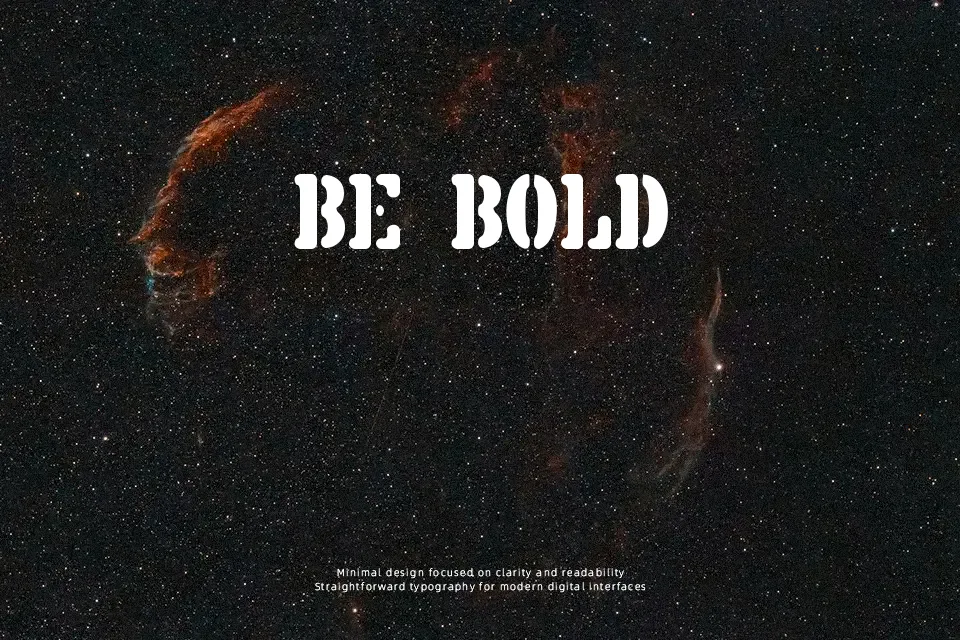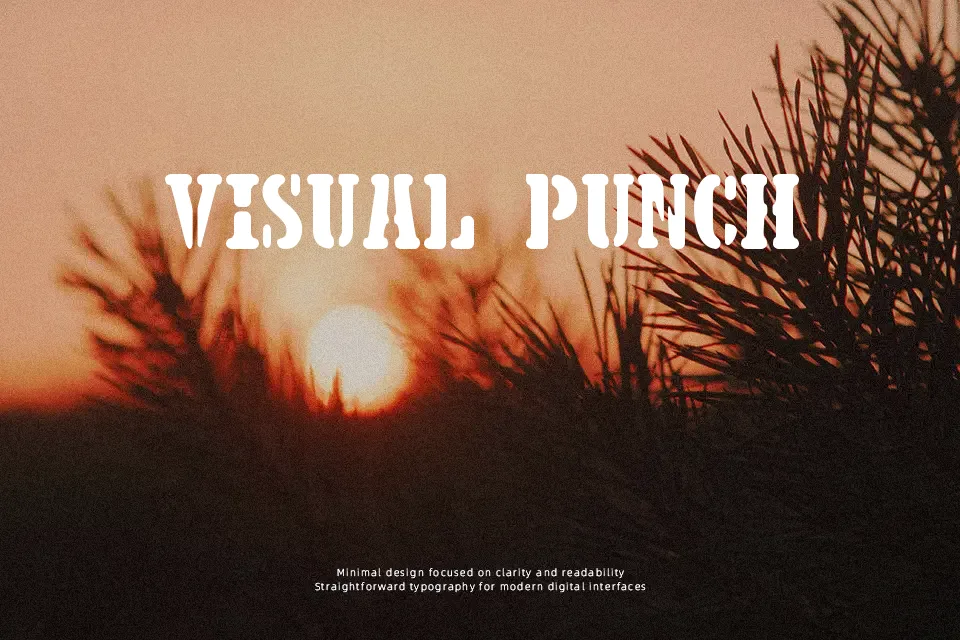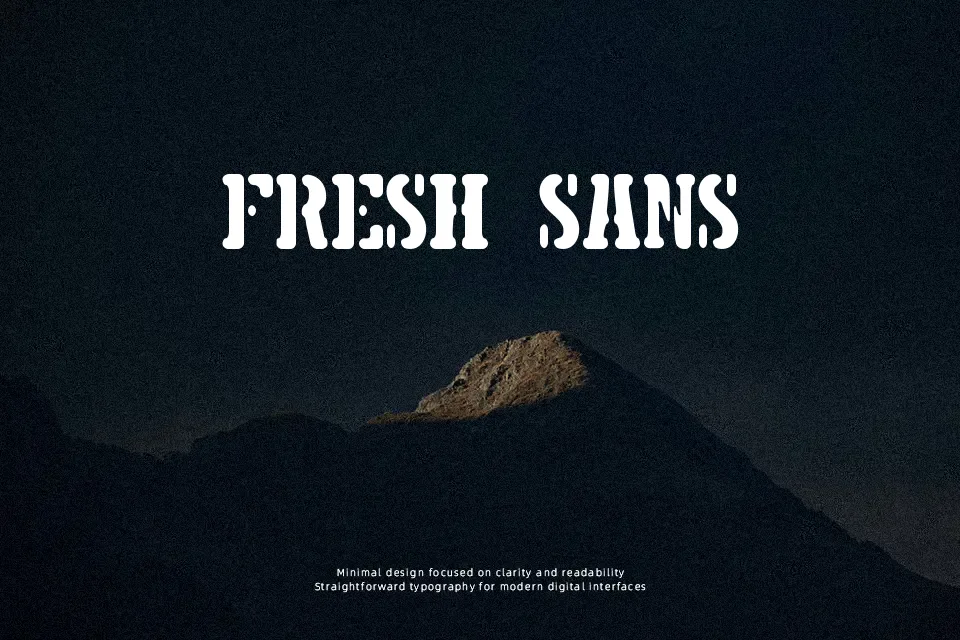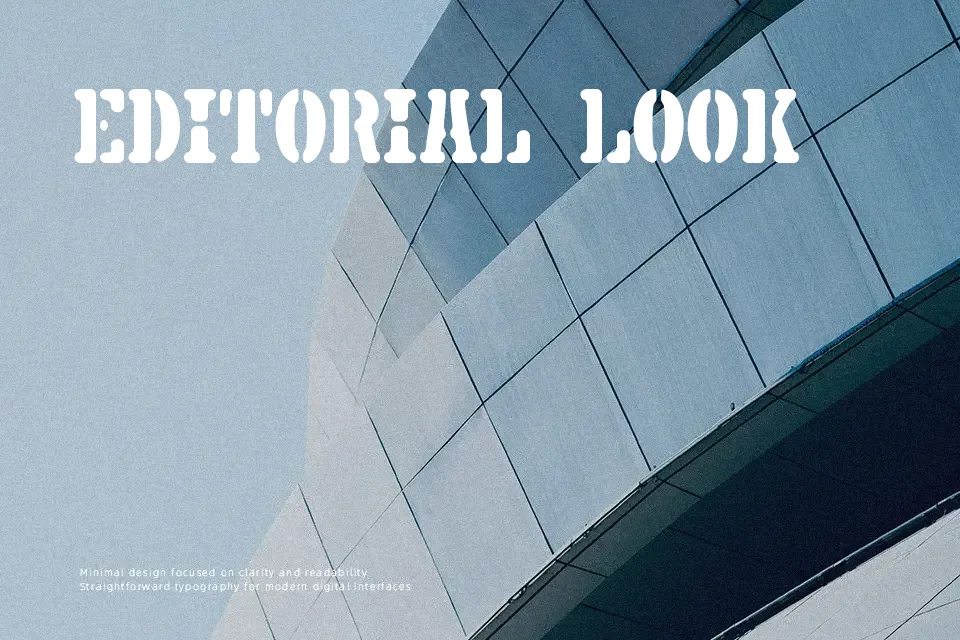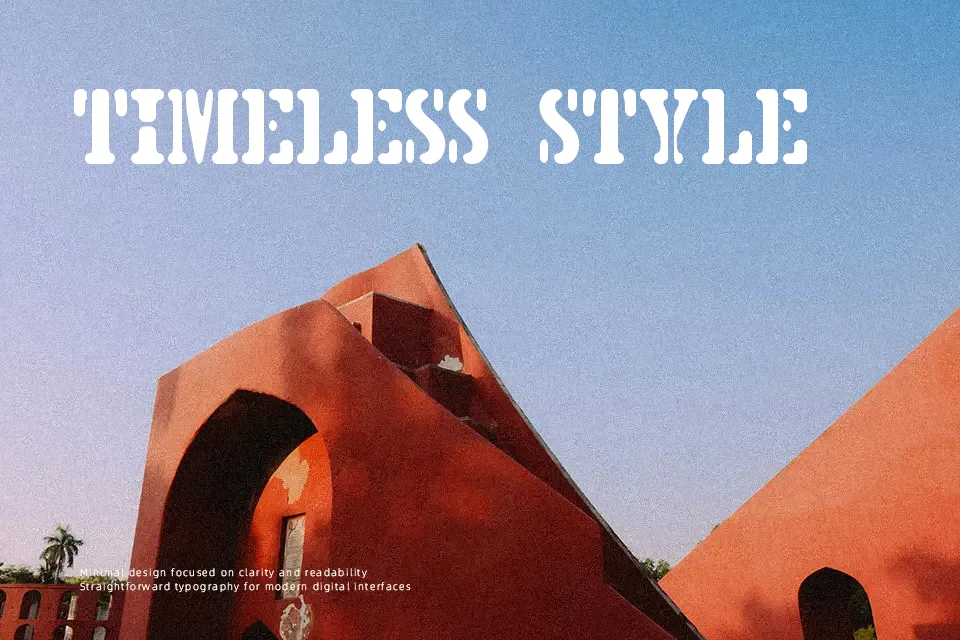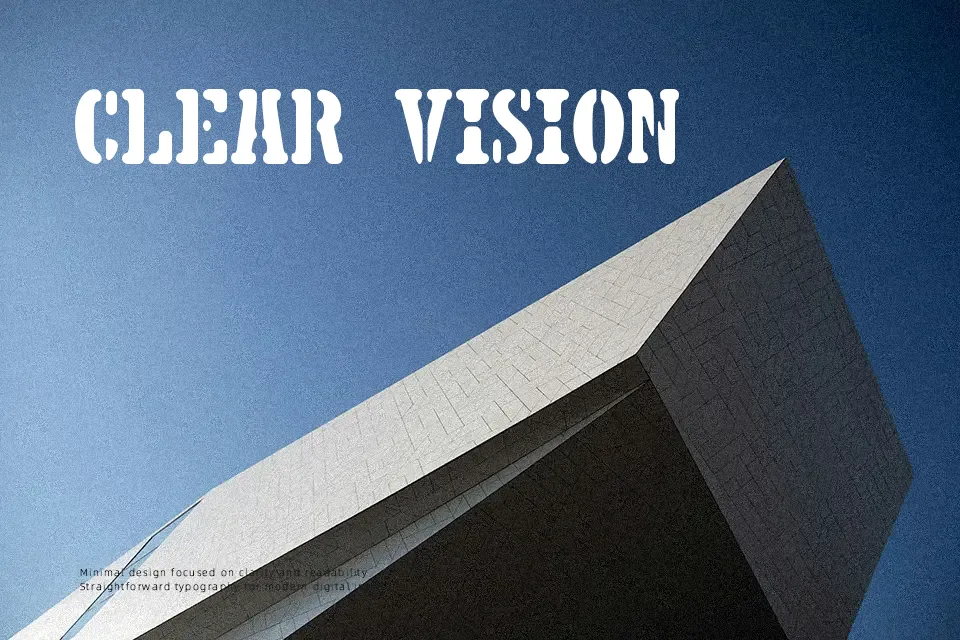
5th Avenue Stencil Font
Thick strokes interrupted by stencil bridges give this font its defining character — each letterform carries visible cutouts that create the unmistakable spray-paint-ready silhouette. The overall weight leans heavy, with minimal stroke contrast and tight internal spacing that projects authority rather than refinement. It reads well at large sizes on posters, merchandise tags, and apparel graphics where gritty urban energy is the intended tone. That same stencil construction, however, becomes a liability at small sizes — the bridges and gaps that define the style visually collapse, making it unsuitable for body copy or fine-print applications. For designers who need clean legibility across all scales, this font will disappoint. Where it earns its place is in headline-only contexts that benefit from a tactile, industrial personality.
– Street wear and apparel graphic headers
– Military or industrial-themed packaging labels
– Urban event poster titles
– Merchandise and product branding with a raw aesthetic
– Small-size text or body copy
– Corporate or professional documents
– Elegant or luxury brand identities
– Multilingual layouts requiring extended character support
Perfect for advertising, branding, and headline, with a bold and display style.